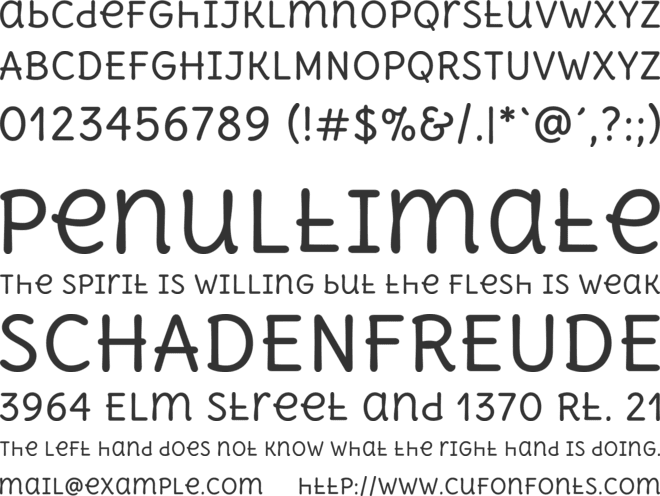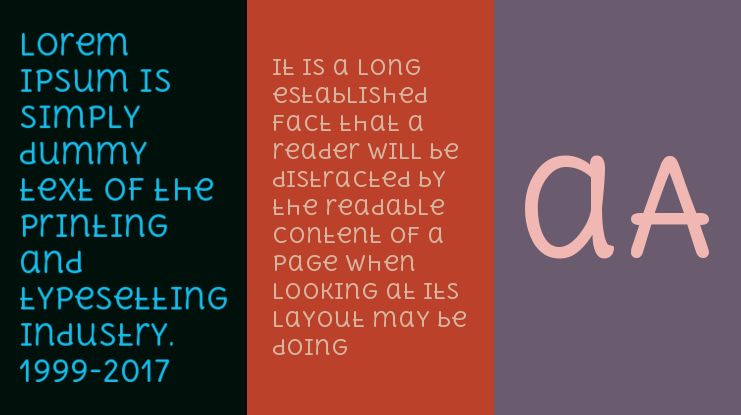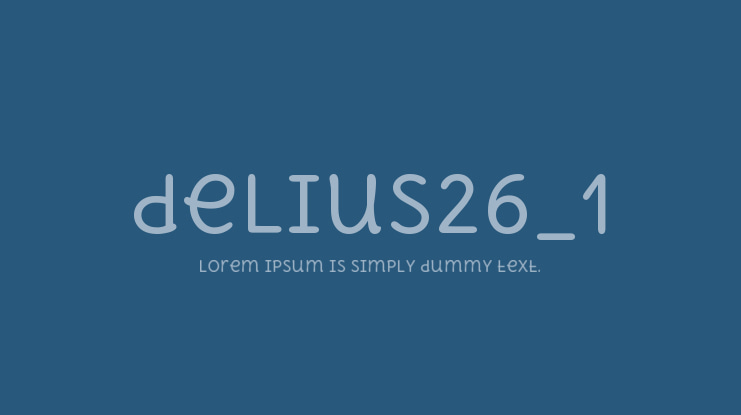
delius26_1 Font
this font is modified from actual Delius unicase font for Asian countries. In Asian countries there are no small case and upper case. so i used delius unicase where all have same height. but actual delius unicase font are having same faces of some characters. so I modified some shapes like "t" and "h". so delius26_1.ttf is modified font for india.